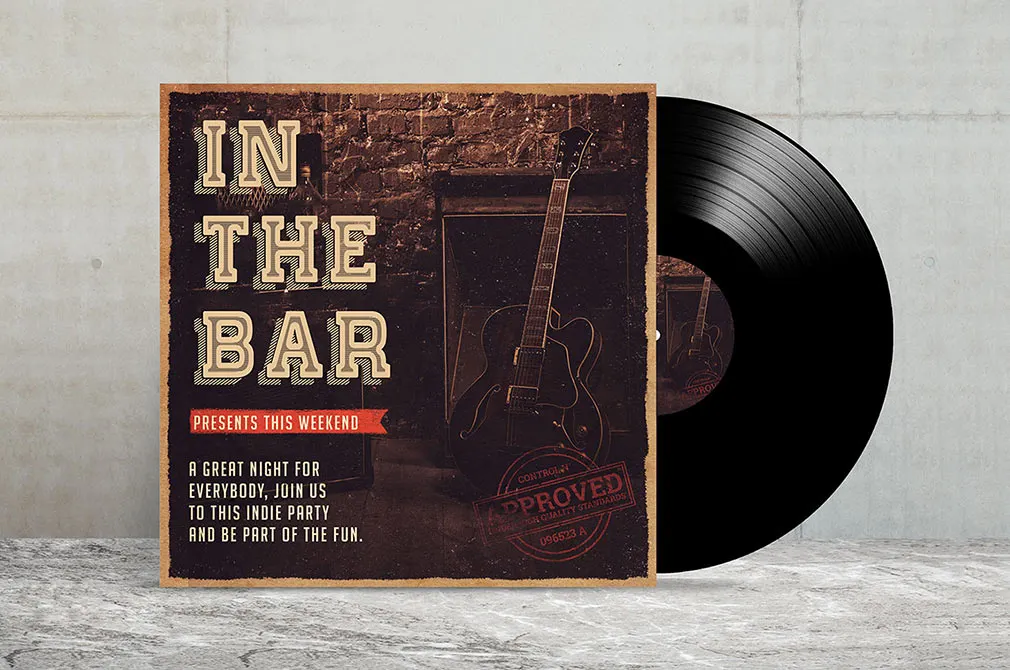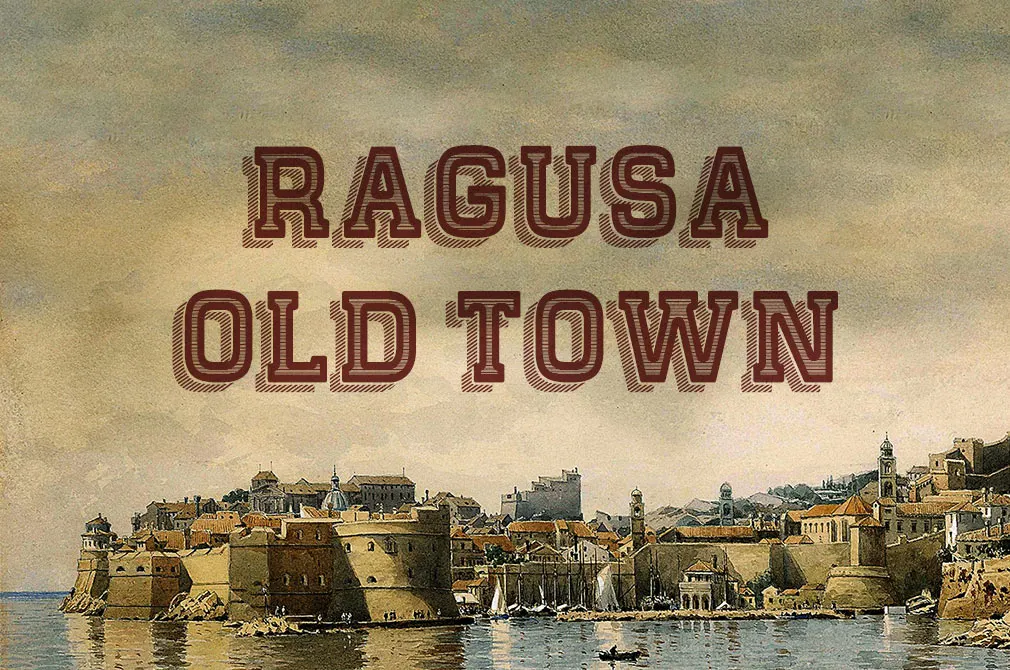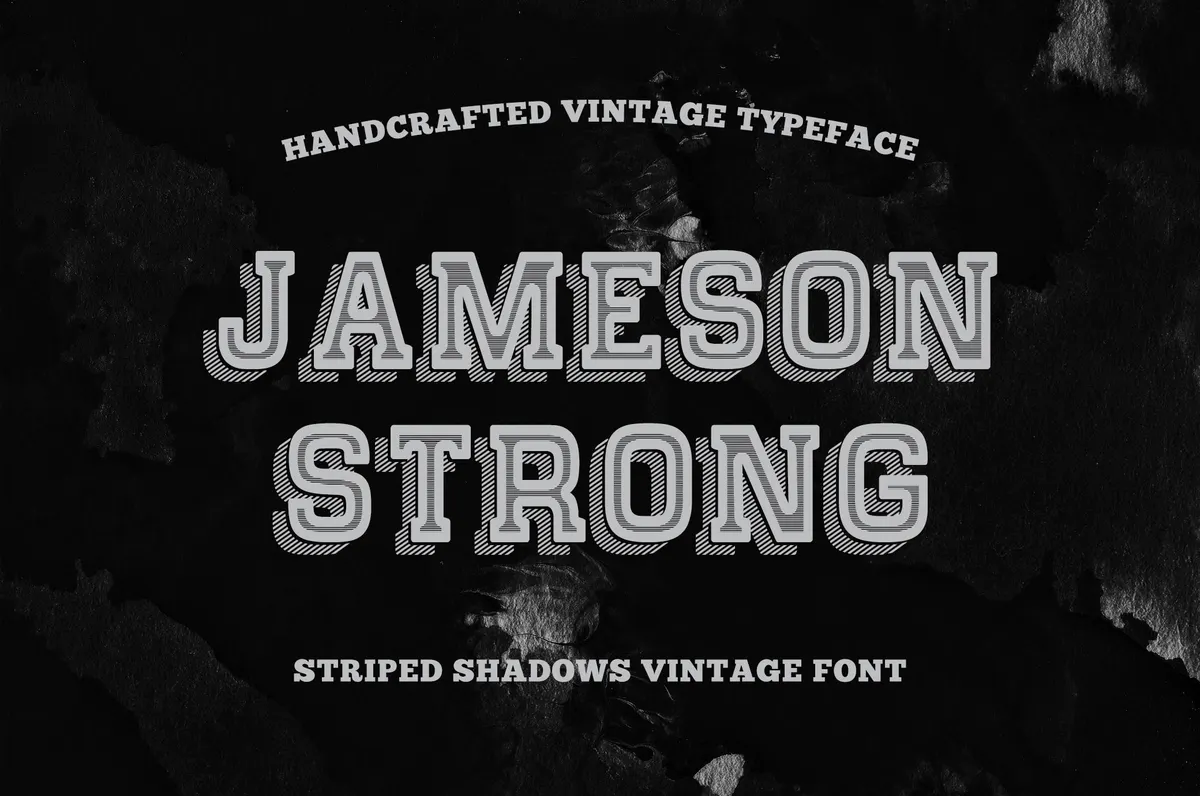
Shadow Stripes Vintage Typeface
Try out the time-tested vintage font, originated from good old postcard designs of previous centuries. Handcrafted with love to details and commitment to beloved typographic traditions.
This font is a mixture of regular font family types with modern design ideas used in many industries. Looking strong with parallel stripes, transferring a powerful message with the suitable undertones, such font would look great as a headline or banner. Of course, printouts, posters, invitations, and signboards will be a great purpose for this font to shine!